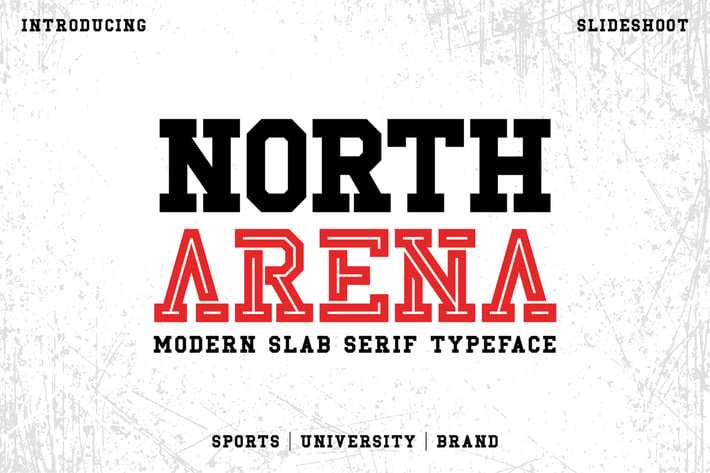
North Arena Slab Serif Font
North Arena Slab Serif: is a bold serif font. He has a strong character. There are two types: regular and inline. Very suitable to be combined with sports designs, company logos, business cards, t-shirts, brand names and various other designs. North Arena Slab Serif: is a bold serif font. This modern and stylish font makes it the perfect partner for any project.
- Uppercase and lowercase
- Numbering and Punctuation